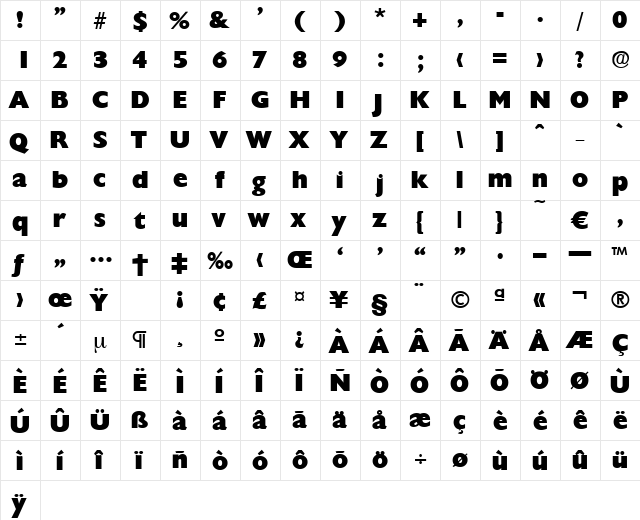
Chantilly-Heavy Regular
Design Context for Chantilly-Heavy Typeface
Chantilly-Heavy offers clean, dependable letterforms without strong stylistic allegiance, making it a practical choice for designers who need flexibility.